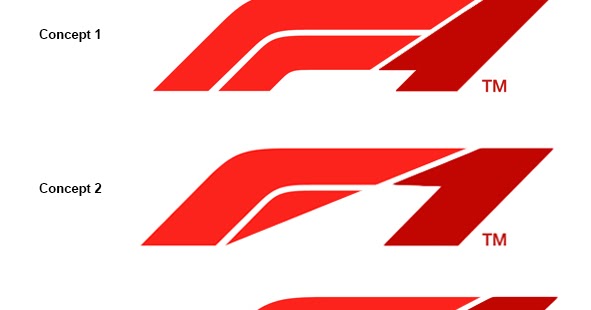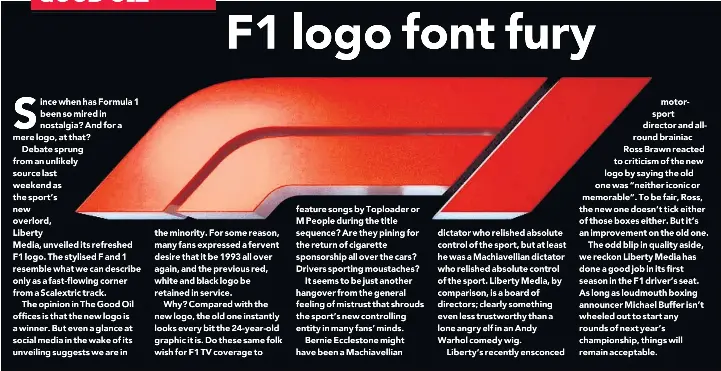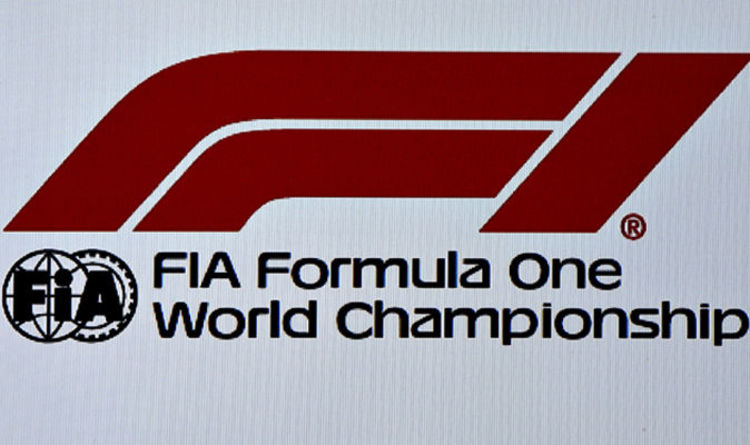
Formula 1
F1 Logo Font
The formula1 display regular font contains 580 beautifully designed characters.
The closest font we can find for formula one logo is diamanti diagonal ef bold which is a display sans serif font designed by wolfgang dutschke and published by elsnerflake. Being a freelance logo designer i was obviously super hyped to see the redesign of the new formula 1 logo redesign below and i was also really impressed by the 3 f1 fonts that were created for the new f1 brand identity. First variations of this logo appeared on 1985 podiums.
F1 reg f1 turbo f1 torque. The red represents passion and energy and the black color represents power and determination.